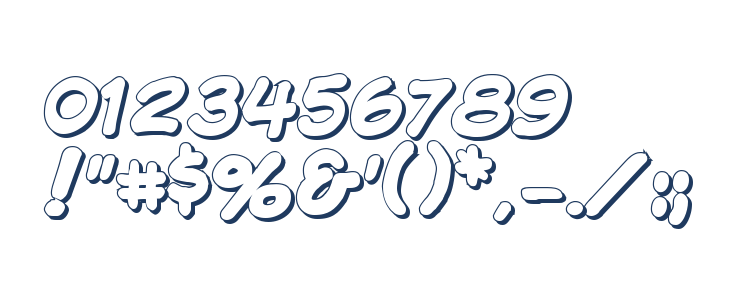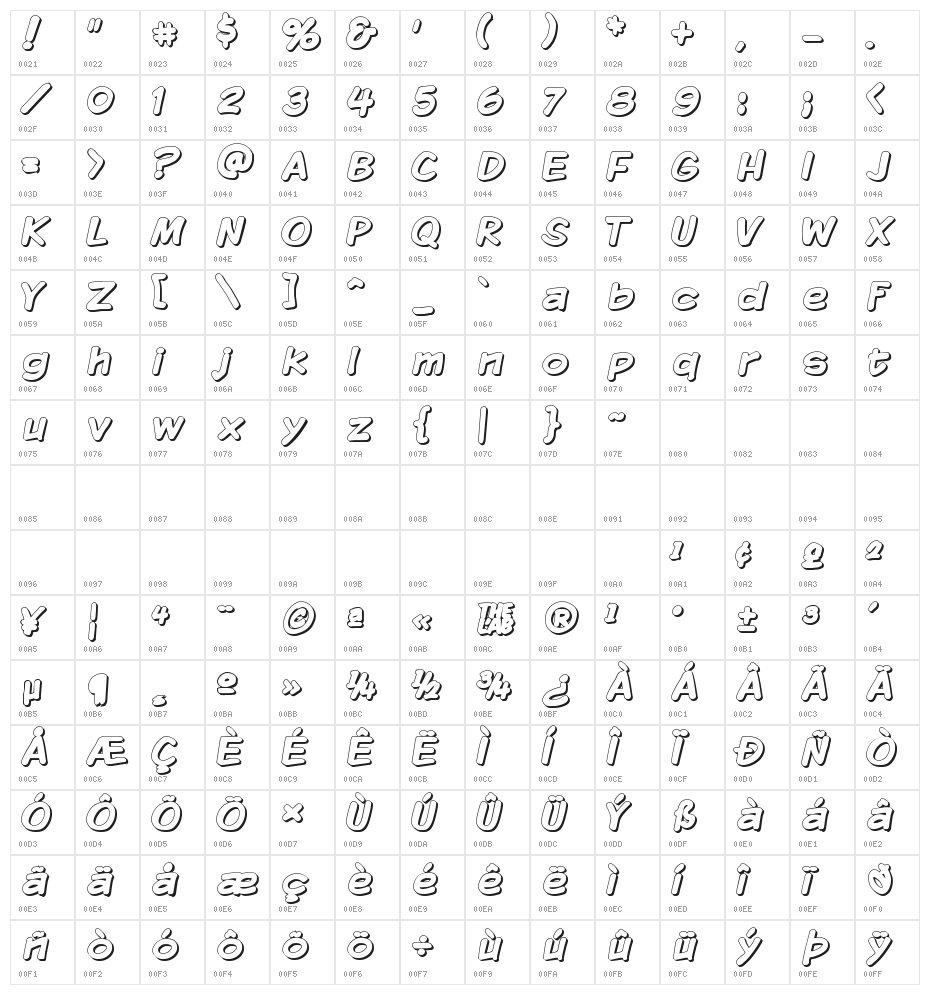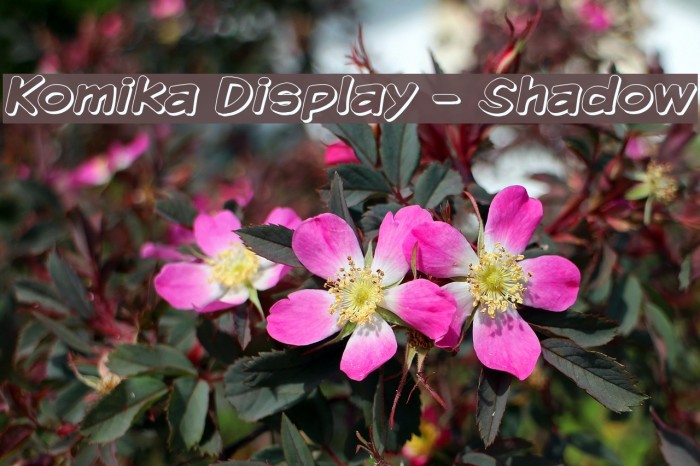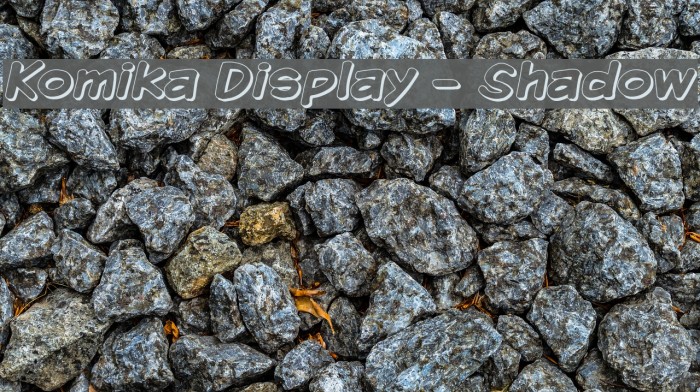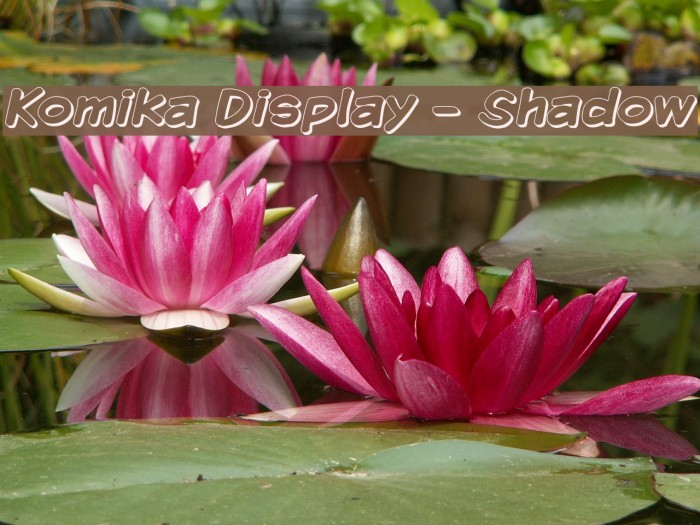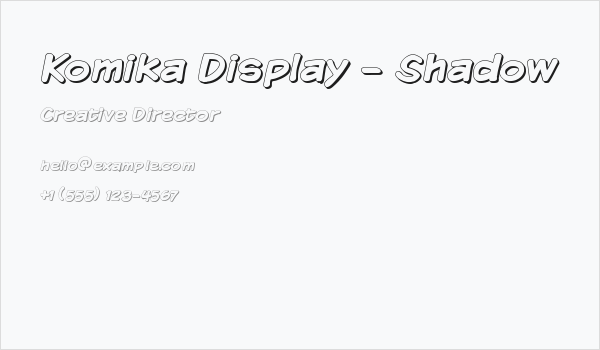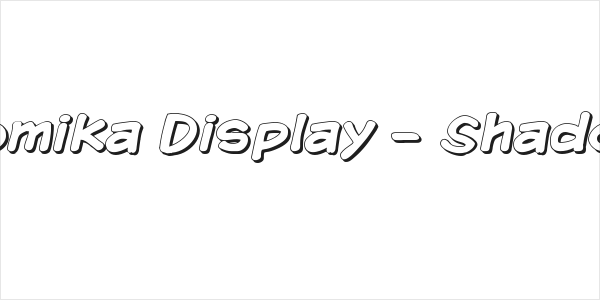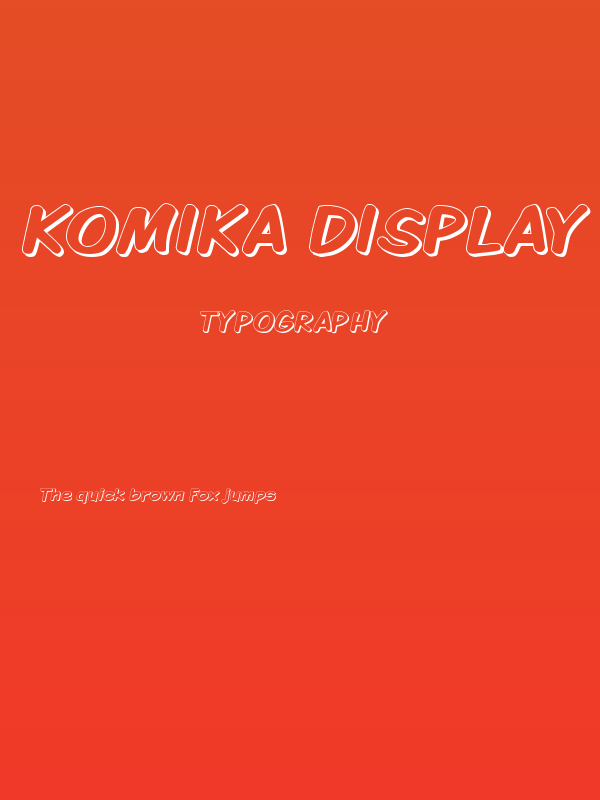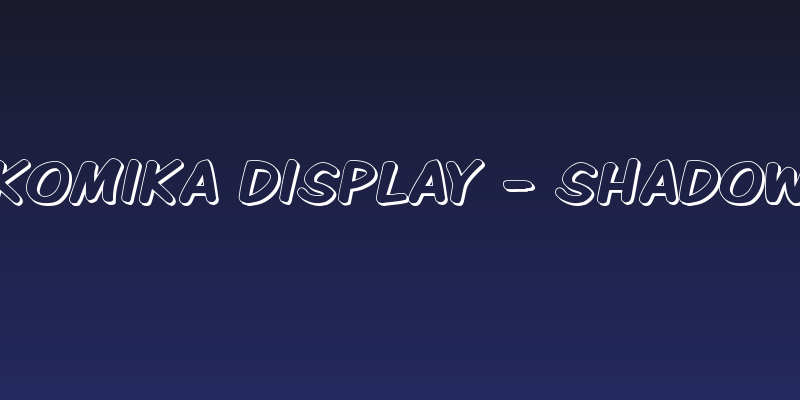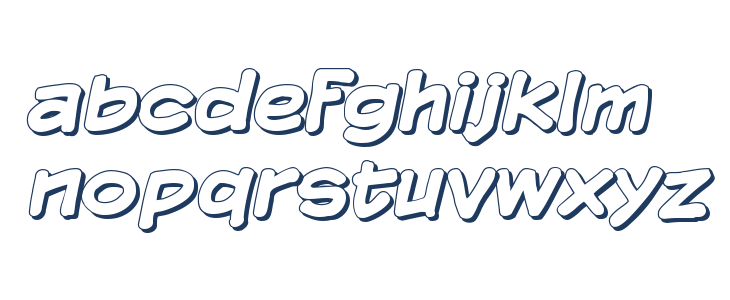
Komika Display - Shadow Font
Komika Display - Shadow Description
This playful and bold font features a distinct shadow effect that gives it a three-dimensional appearance. The characters are rounded and slightly inflated, creating a fun and approachable look. The uppercase and lowercase letters maintain a consistent style, with smooth curves and a uniform thickness. Numbers and special characters are designed to match the playful aesthetic, making this font ideal for creative projects. The shadow adds depth, enhancing its visual appeal and making it stand out in various applications.
| Overall Style | Playful, Fun |
| Use Case | Headlines, Posters, Branding |
| Proposed Projects | Ideal for comic books, children's books, posters, and playful branding. |